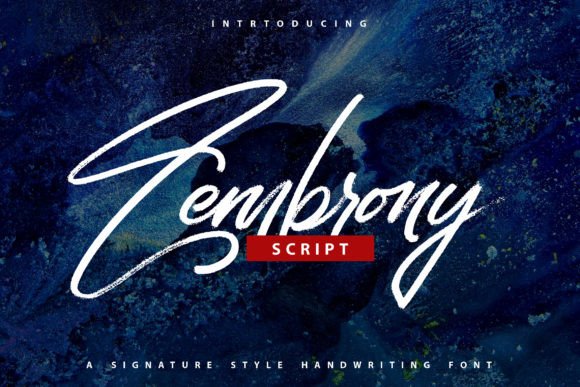
Behold, Zembrony – a symphony of exquisite curves, a whisper of elegance, and an expression of creativity like no other. This script font, crafted by the ingenious hands of Vunira, is a testament to the beauty and artistry that can be born from the union of letters. Inspired by the fluidity of handwritten notes, Zembrony seamlessly blends classic charm with a modern twist. Its graceful lines and playful flourishes evoke a sense of nostalgia, while its clean and legible strokes ensure readability and versatility.
Immerse yourself in the captivating world of Zembrony. Allow its enchanting strokes to guide you as you create breathtaking invitations, greeting cards, branding materials, business cards, quotes, and posters. The possibilities are limitless, bound only by your imagination. This font is a visual muse, a dance of letters that will elevate your designs to new heights of sophistication and artistry.
Embrace the creative freedom that Zembrony offers. Its PUA encoding grants you effortless access to a treasure trove of glyphs and swashes, empowering you to unleash your creativity and add a touch of individuality to your projects. With Zembrony, every design becomes a reflection of your unique style and vision.